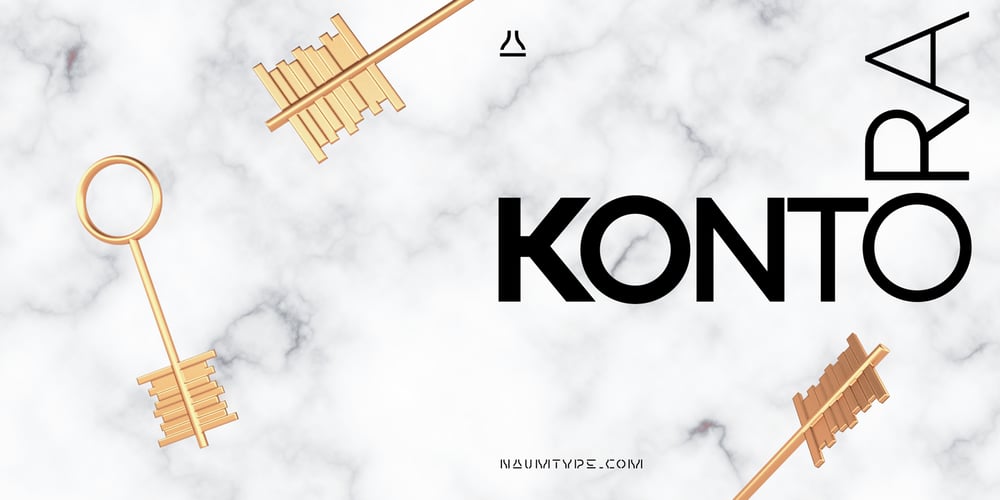
Kontora Font Family was designed by Peter Bushuev and published by NaumType. Kontora contains 9 styles and family package options. Kontora is elegant, universal and laconic geometric sans. Kontora has minimal amount of decor, mostly modern proportions and letterforms, but at the same time shows a touch of retro constructivist aesthetics. This version of Kontora sans comes in 9 weights, it has 590 glyphs, therefore it supports Latin Extended A (Western and Central European) and Cyrillic (Russian, Ukrainian, Bulgarian) languages. It has basic ligatures and two sets of stylistic alternates. Kontora is perfect for clean and minimalistic design, as well as it can be a breath of fresh air to a fully loaded complex layout. Use it for bold typography, headlines, posters, branding, packaging, it looks great in all caps and vivifies design as a text font.